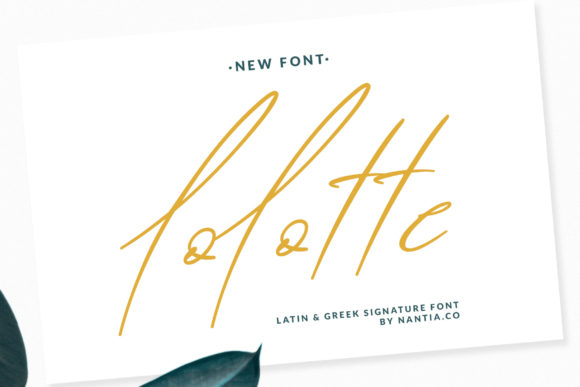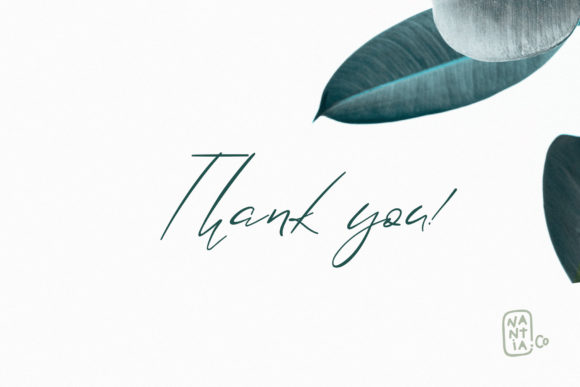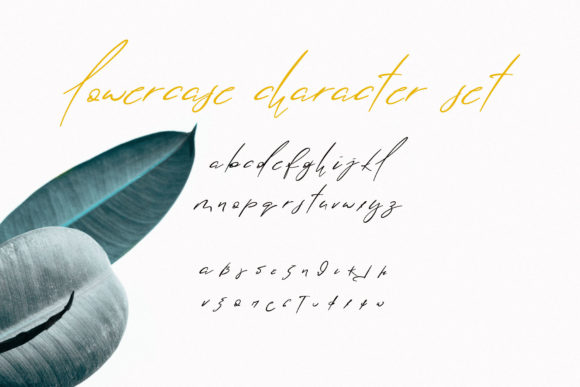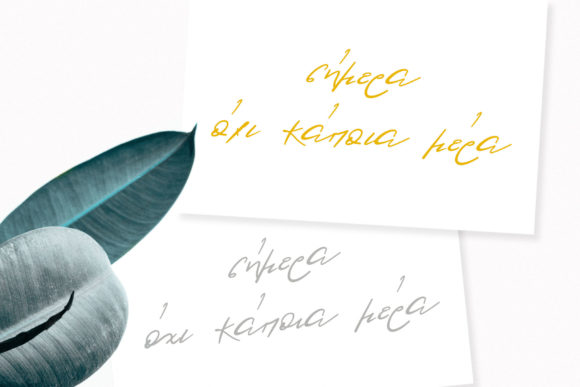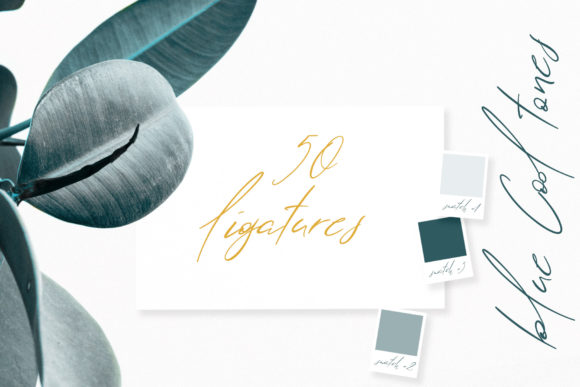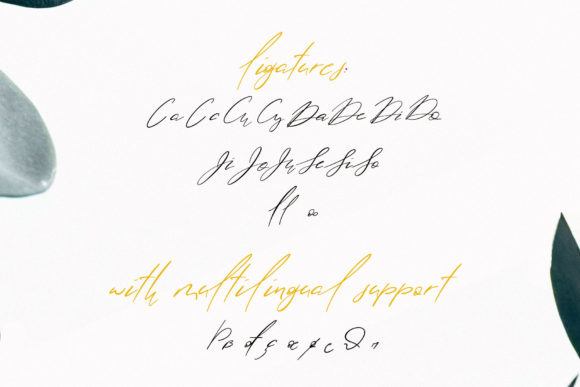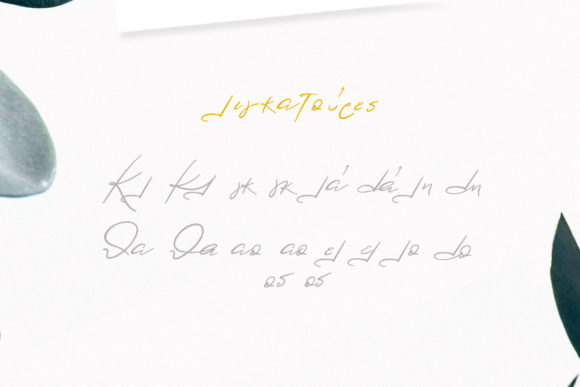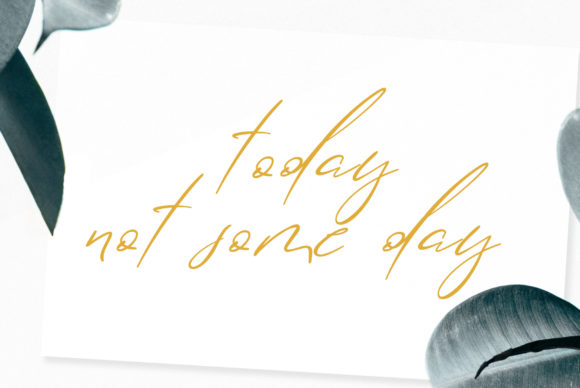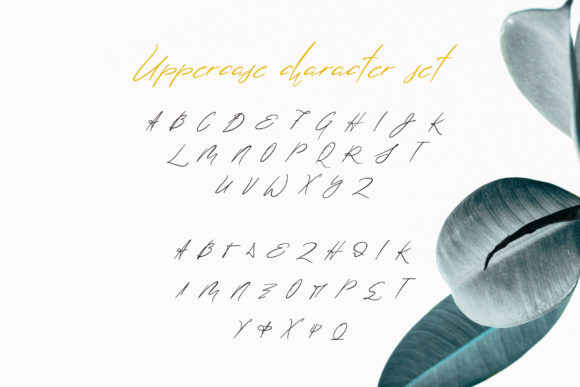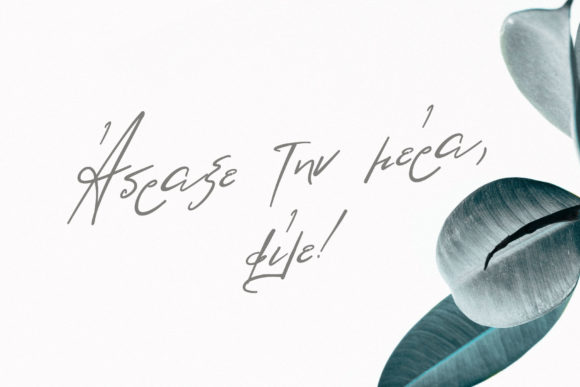
HomeScript FontsLolotte Font Script Fonts Lolotte Font FacebookXPinterestWhatsApp Lolotte Font Poster 2 Lolotte Font Poster 3 Lolotte Font Poster 4 Lolotte Font Poster 5 Lolotte Font Poster 6 Lolotte Font Poster 7 Lolotte Font Poster 8 Lolotte Font Poster 9 Lolotte Font Poster 10 About Lolotte Font Lolotte is a signature handwritten font with an incredibly authentic look. Get inspired by its casual elegance. DOWNLOAD ON CREATIVE FABRICAThis font is sold and delivered by Creative Fabrica. Font Canyon may earn a commission if you buy through this link. People also explored Handsome Font Aortascarta Font Coffee Mocha Font Stamp Mark Font Wedding Story Font Velcro Rose Frame Font Notebook Christmas Font Bhiter Font 334 0 TagsLolotte Font Previous articleBaginda FontNext articlePomme Noir Font LEAVE A REPLY Cancel reply Comment: Please enter your comment! Name:* Please enter your name here Email:* You have entered an incorrect email address! Please enter your email address here Website: Save my name, email, and website in this browser for the next time I comment. Personal Use Free Rhetorical Personal Use Free Read more about this font Cherry Ai Personal Use Free Read more about this font Maxwell Personal Use Free Read more about this font Groomer Personal Use Free Read more about this font BLOG Elegant Wedding Invitation Fonts – Handwritten & Script Fonts Elegant Wedding Invitation Fonts Your wedding day is one of the most important moments of your life, and every detail matters—including your invitation design. Our... Best Fonts for YouTube Videos: Make Your Thumbnails Stand Out Exploring Font Trends Top 7 Google Fonts Alternatives for Faster and Privacy-Friendly Web Design (2025)